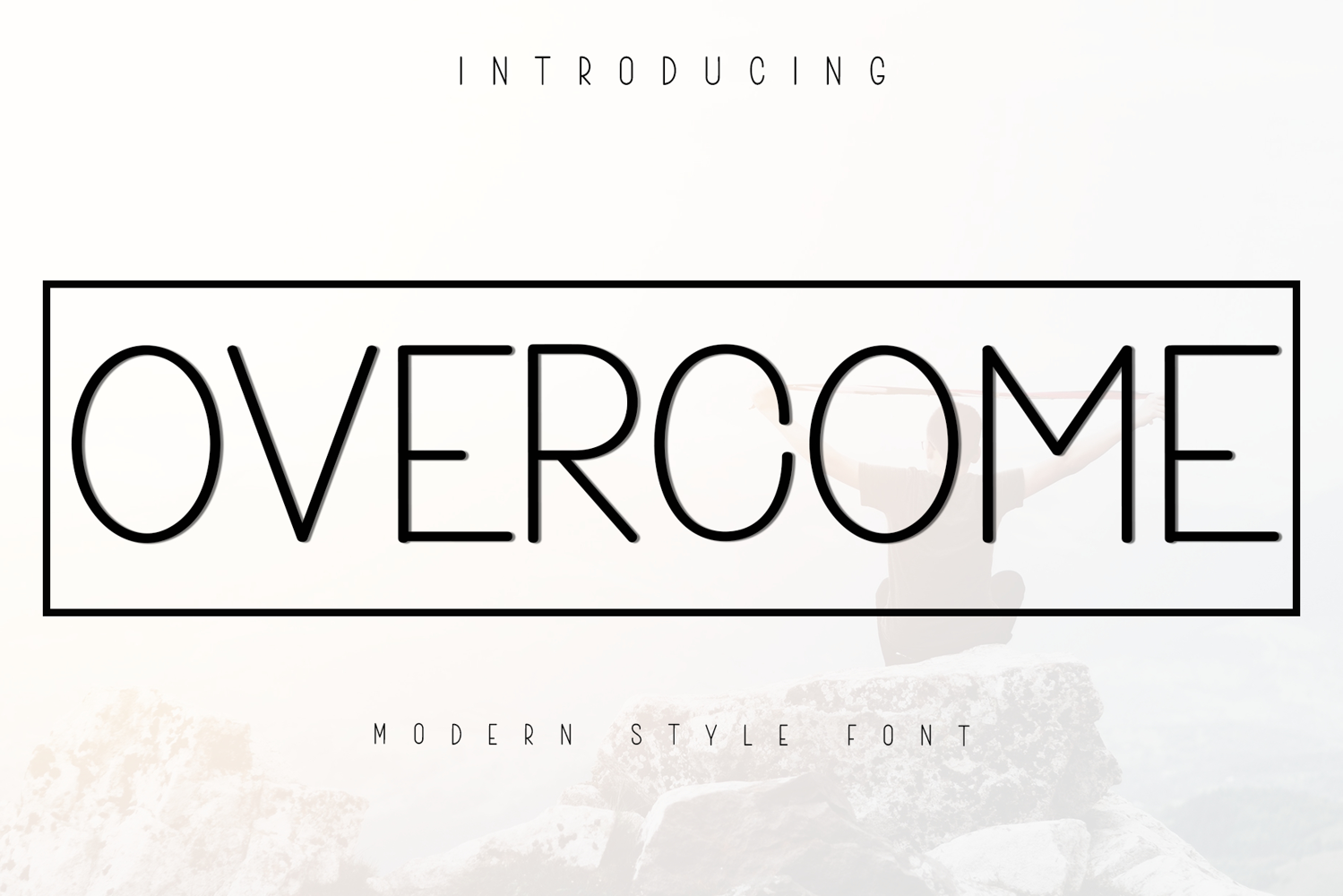
Overcome
Overcome is a beautiful and eye-catching font designed with a soft, unique touch. Its distinctive strokes give it a special character, making it meaningful and versatile for future use. With various characters, it’s perfect for design projects, crafts, and other creative works.